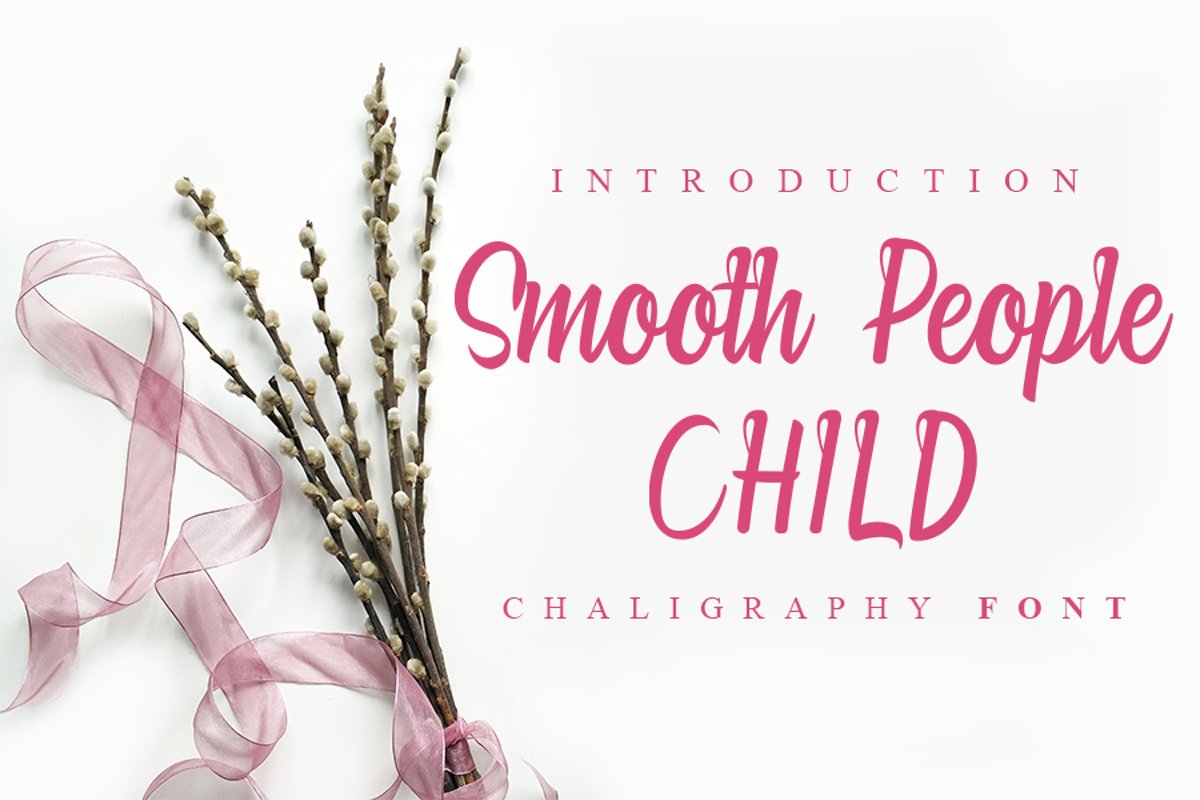
Smooth People Child
Smooth People CHILD
Smooth People Child is a well-balanced handwritten font, matching a wide variety of designs. It will look outstanding in any context, whether it’s being used on busy backgrounds or as a standalone headline!